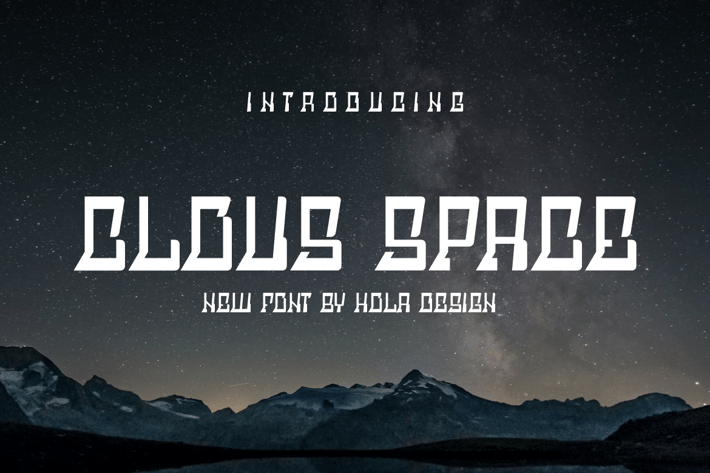
Clous Space Font
Clous Space Font Font is unique . Ready to use for your design like labeling, movie sceen, poster, movie title, gigs, album covers, logos, and much more.